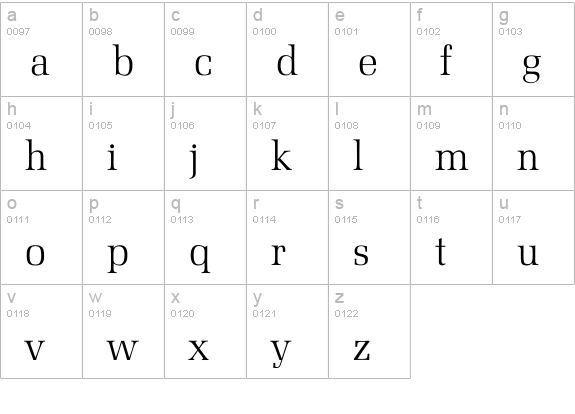
Marsei Light is a refined, elegant variant in the Marsei typeface family \xE2\x80\x94 well suited to elegant body text, refined sub-headings, and luxury branding.
Introducing Marsei Light, a captivating and elegant font that will add a touch of sophistication to your designs. This modern and versatile typeface boasts a delicate balance between sleekness and readability, making it perfect for a wide range of creative projects. With its clean and crisp lines, Marsei Light exudes a sense of refined grace, making it ideal for branding, logos, headlines, and more. Its timeless appeal will effortlessly elevate any design, whether it's for print or digital media. But what makes Marsei Light even more impressive is the fact that it is freely available to download at FontsMarket.com. Yes, you read that right – this stunning font can be yours without any cost. Now you can enhance your projects with a premium font without breaking the bank. Marsei Light's versatile nature allows it to shine in various design contexts. Its subtle elegance adds a touch of sophistication to wedding invitations, while its legibility makes it a reliable choice for blog headings and body text. From sleek and modern to refined and classic, this font effortlessly adapts to your vision. The attention to detail in Marsei Light is evident in its perfectly balanced letterforms. Each character is meticulously crafted to ensure seamless readability and harmonious aesthetics. Its subtle curves and precise angles create a sense of fluidity and harmony that will captivate your audience. Whether you're a professional designer or a creative enthusiast, Marsei Light is a must-have font in your collection. Its versatility, elegance, and the fact that it is freely available for download at FontsMarket.com make it an irresistible choice for any design project. Elevate your work to new heights with Marsei Light today.